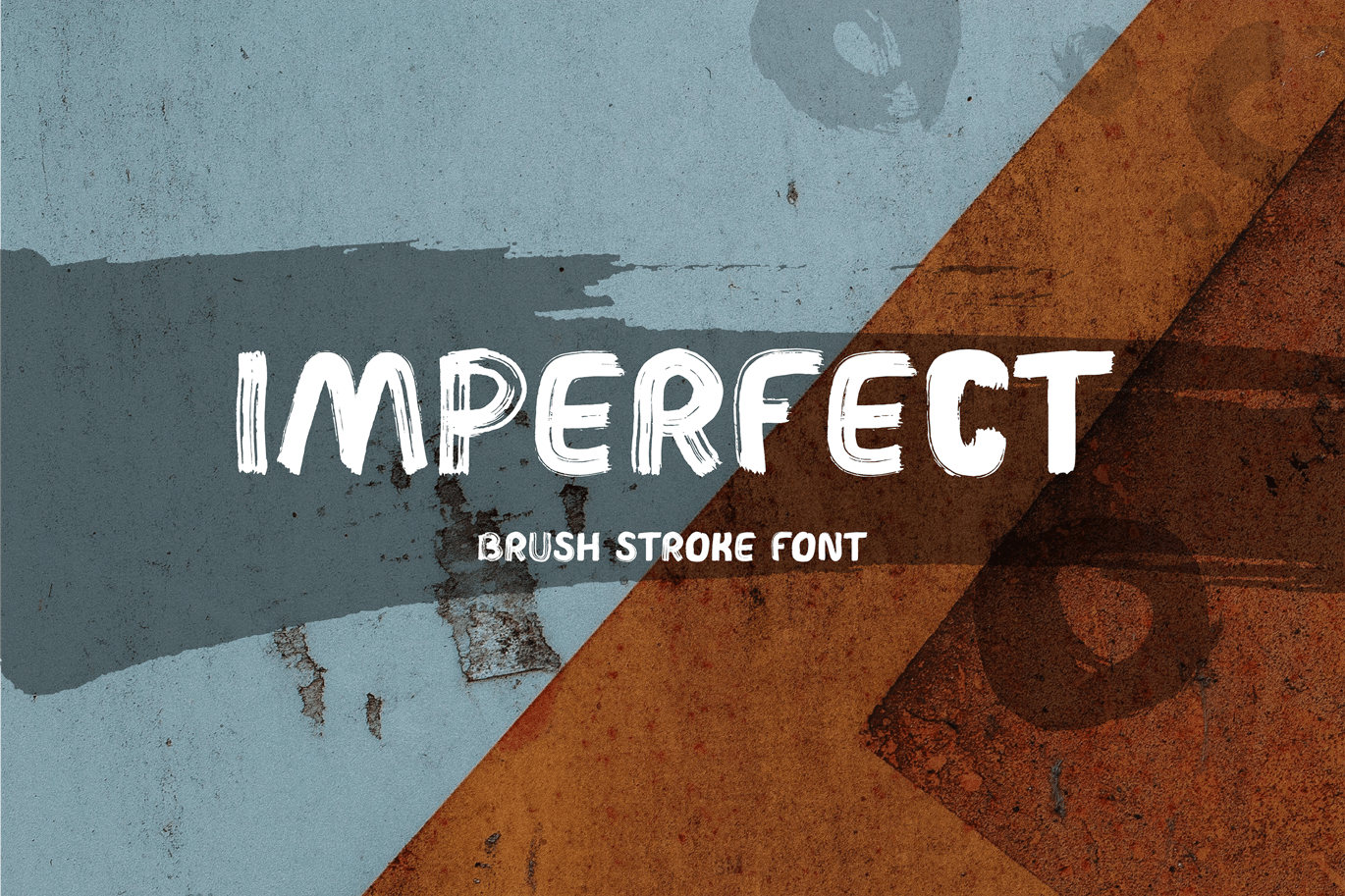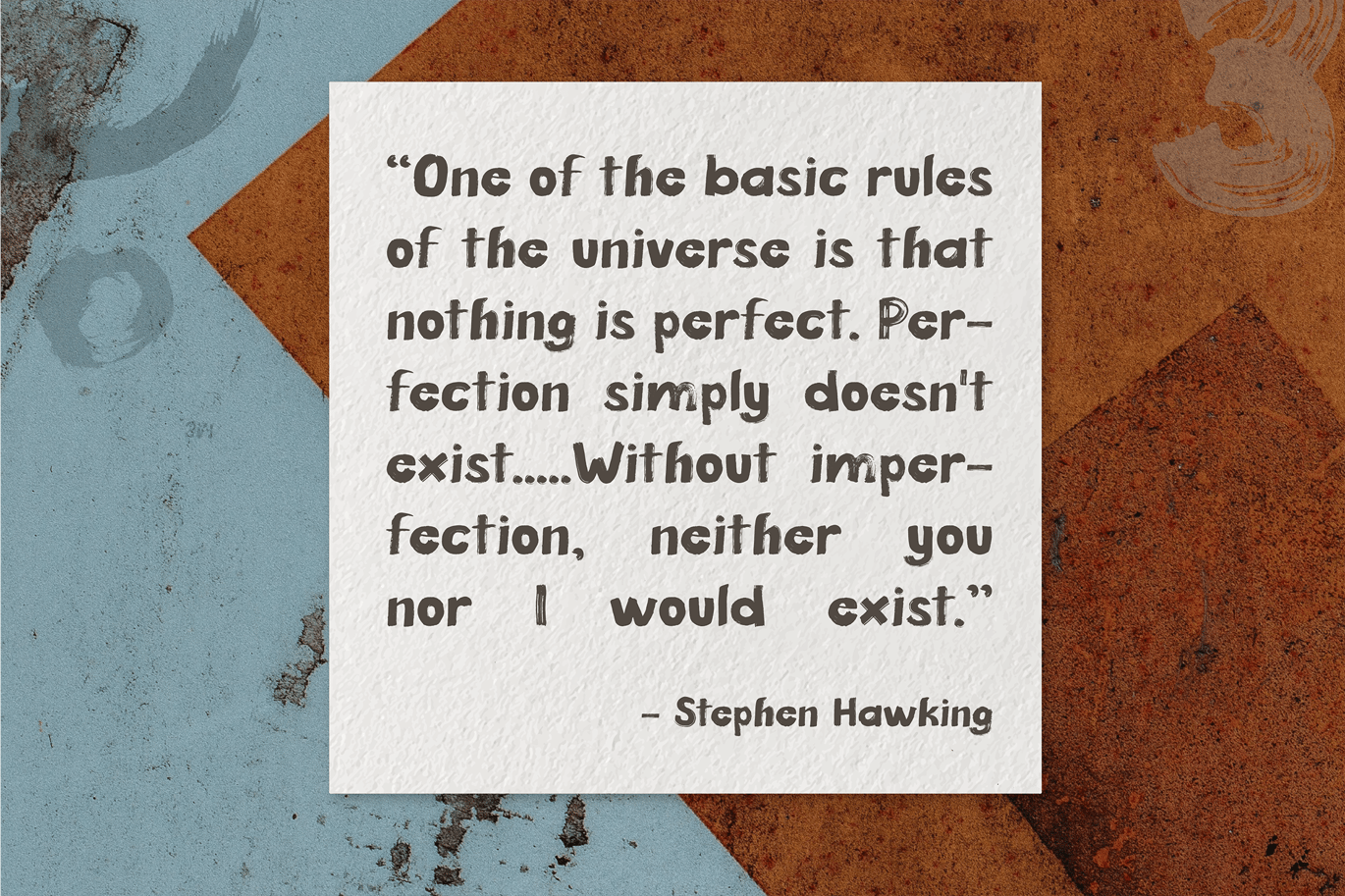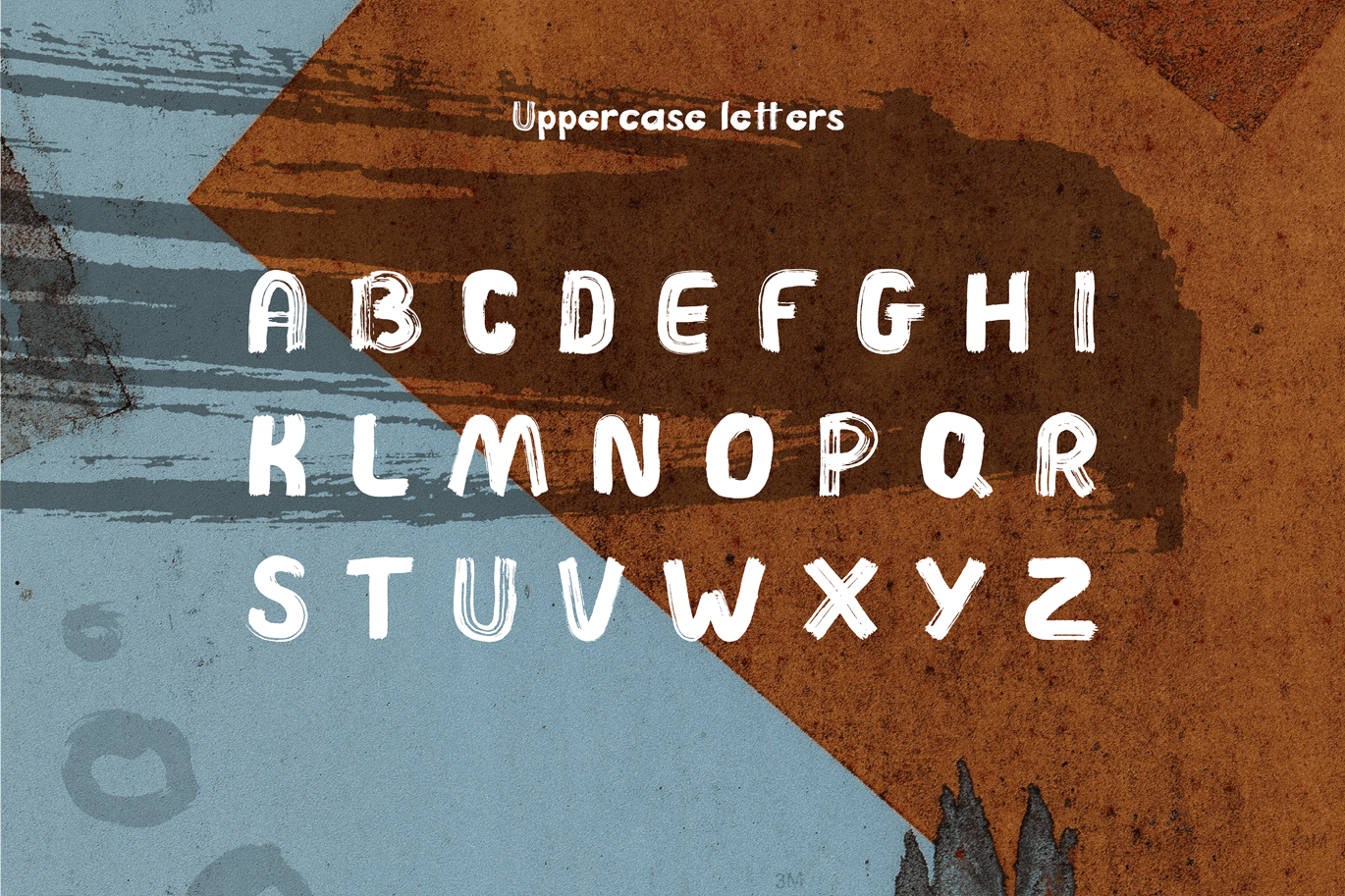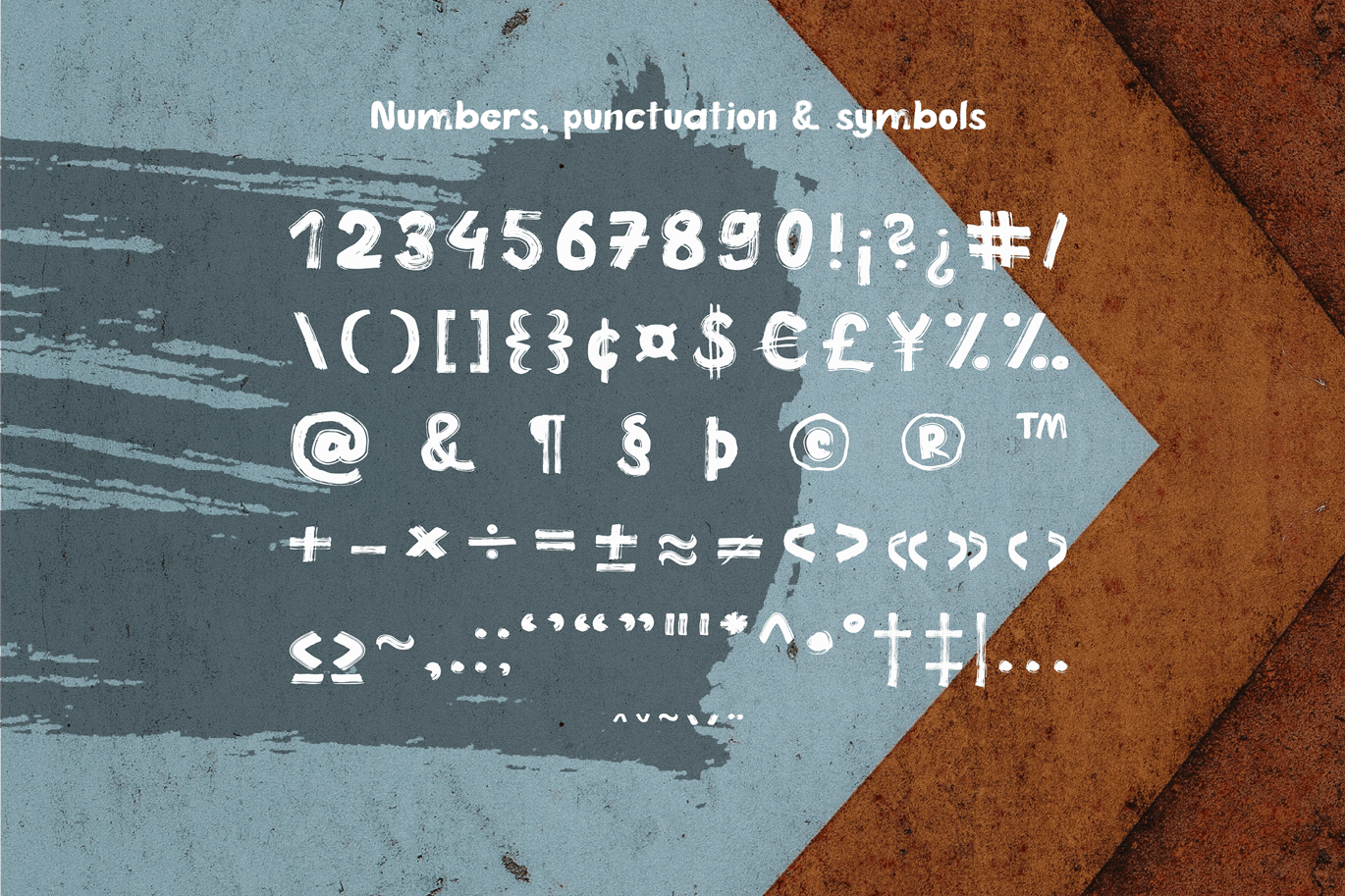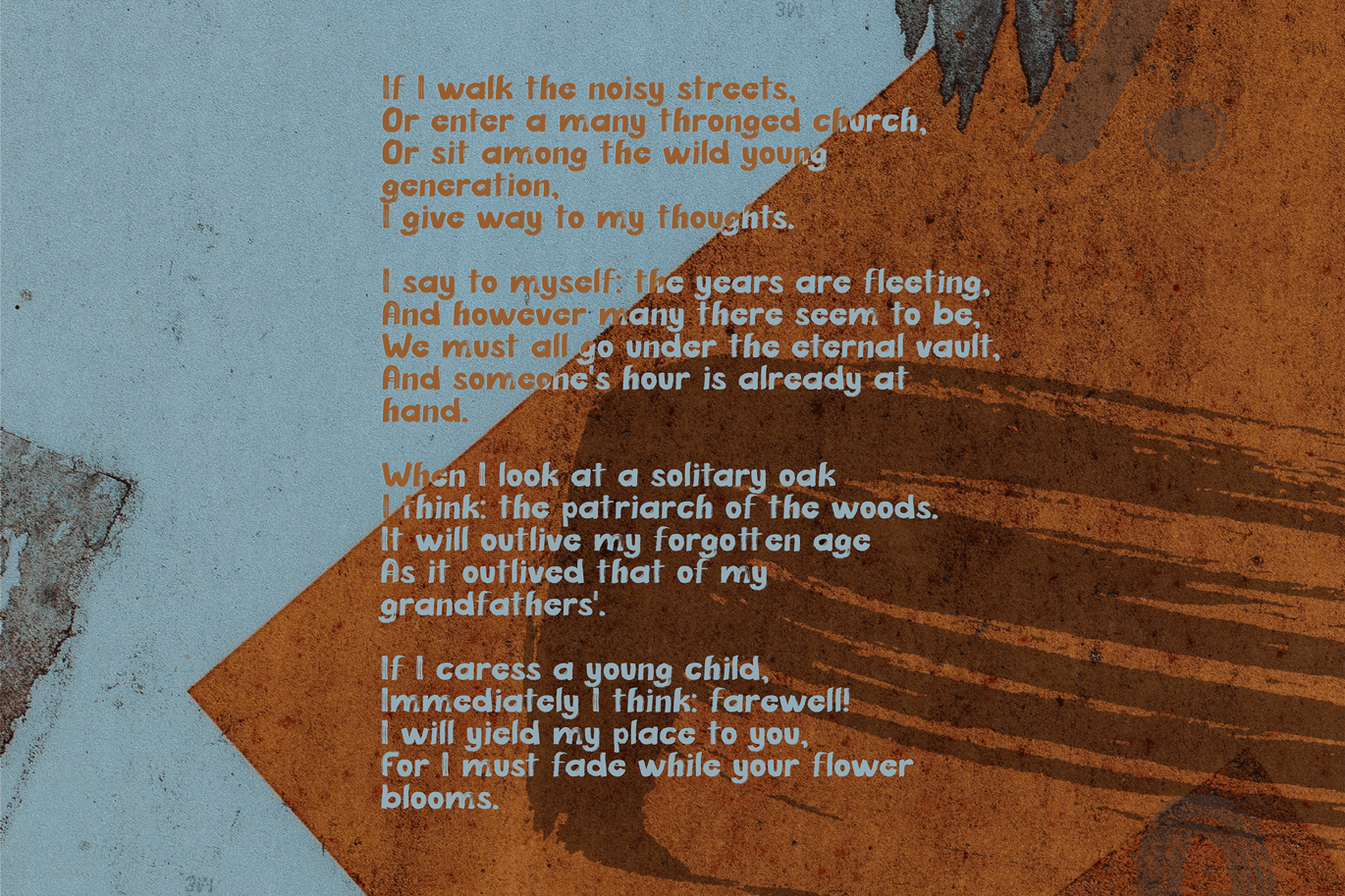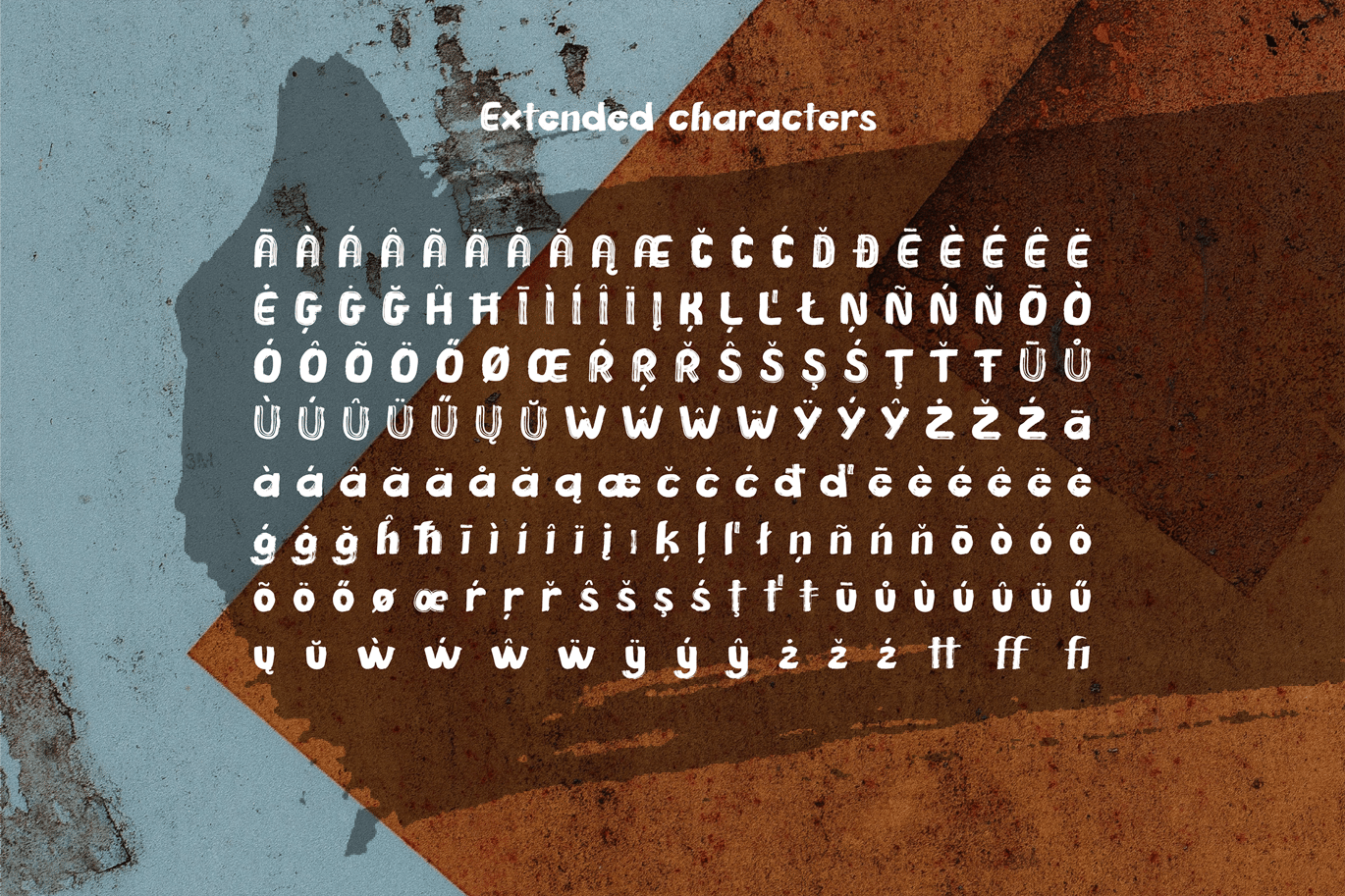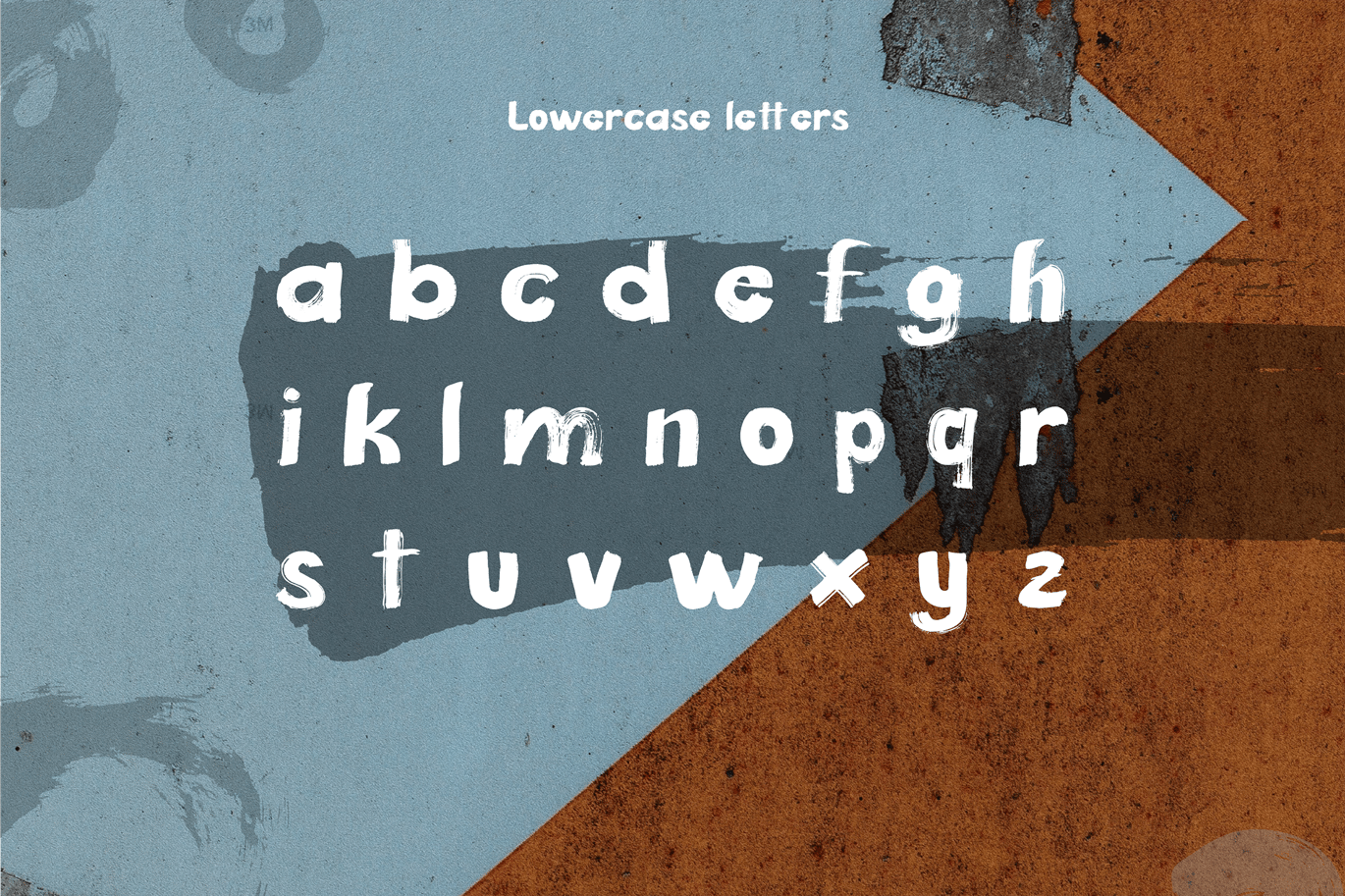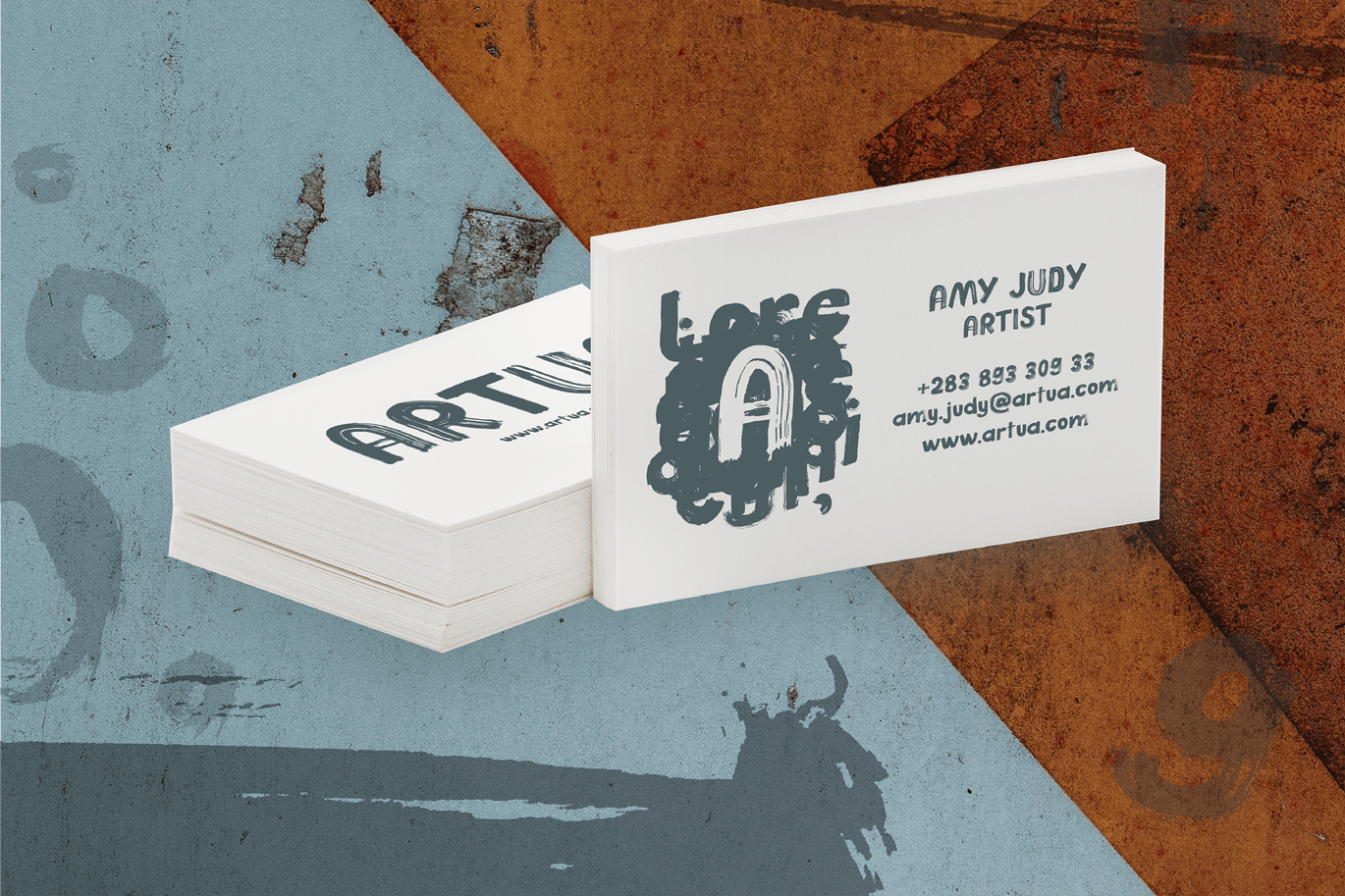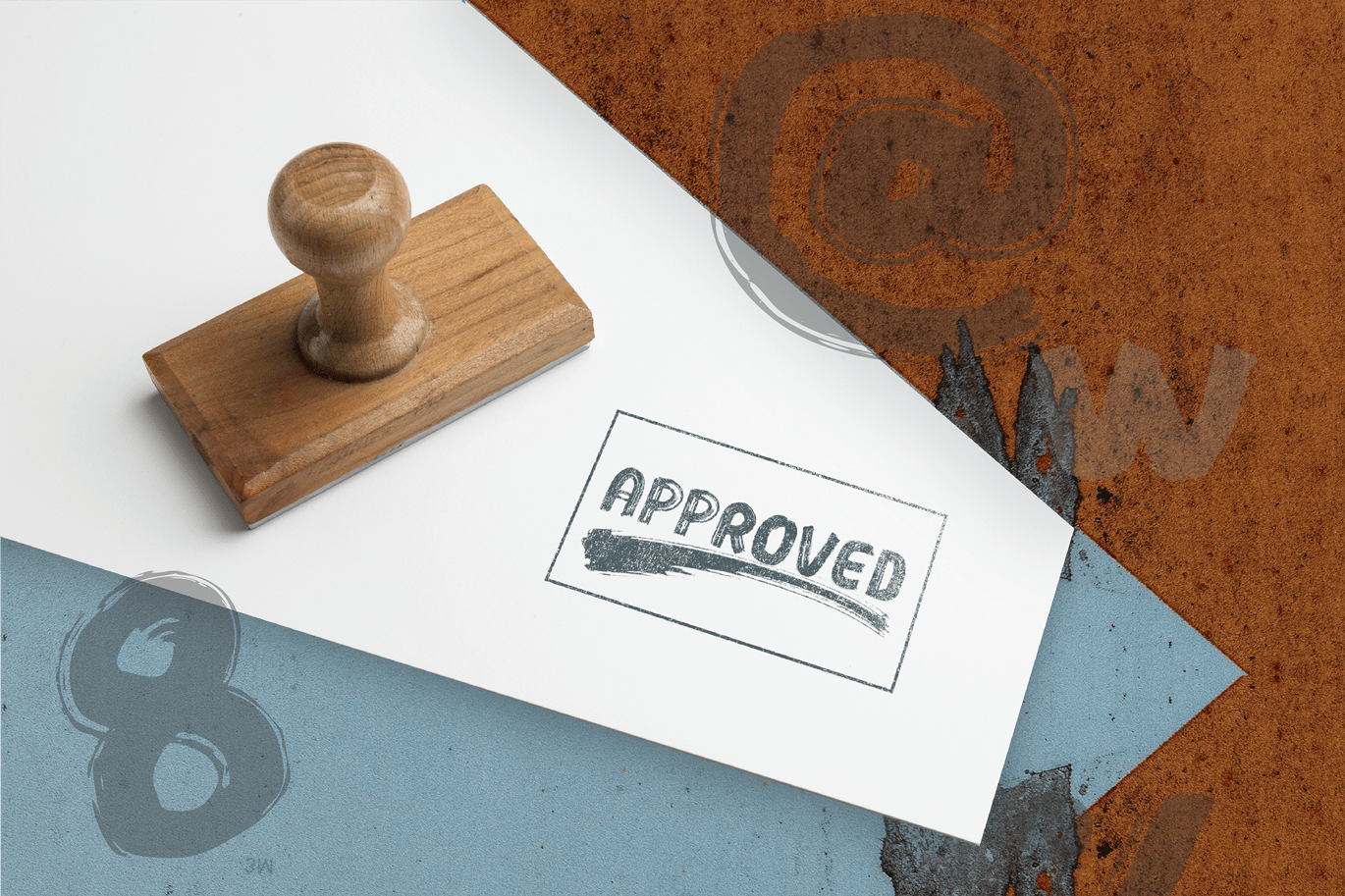
Imperfect Brush Font
Brush stroke font IMPERFECT
I would like to introduce to brush stroke font Imperfect that has this feeling of simplicity, roughness and something archaic.It was created by a calligrapher with a Japanese ink and rough flat brush. All letters were scanned and vectorised trying to keep the maximum initial rough texture to it.
Use this font to create statement posters, book covers, print materials. Perfect for fashion items such as T-shirts to imitate brush stroke writing. Could be used to create logo, various graphic materials that need this authentic, imperfect letter feeling to it.